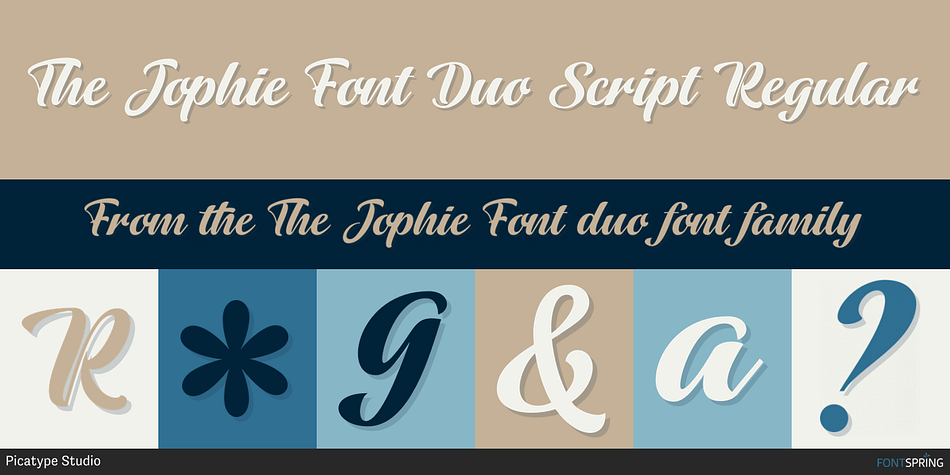
The Jophie Font Duo Script Regular
Designed by Indie Type, The Jophie Font duo is a brush script, sans serif and script font family. This typeface has two styles and was published by Picatype Studio.
Introducing The Jophie Font Combination, a classy and contemporary pair of scripts and sans rounded fonts.
This versatile script typeface includes many different alternates for each lowercase letter. It’s extremely fun to use as each word can be transformed to your liking.
The Jophie offers beautiful typographic harmony for a diversity of design projects, including logos & branding, wedding designs, social media posts, advertisements & product designs.
The Jophie Sans rounded
The Jophie Script